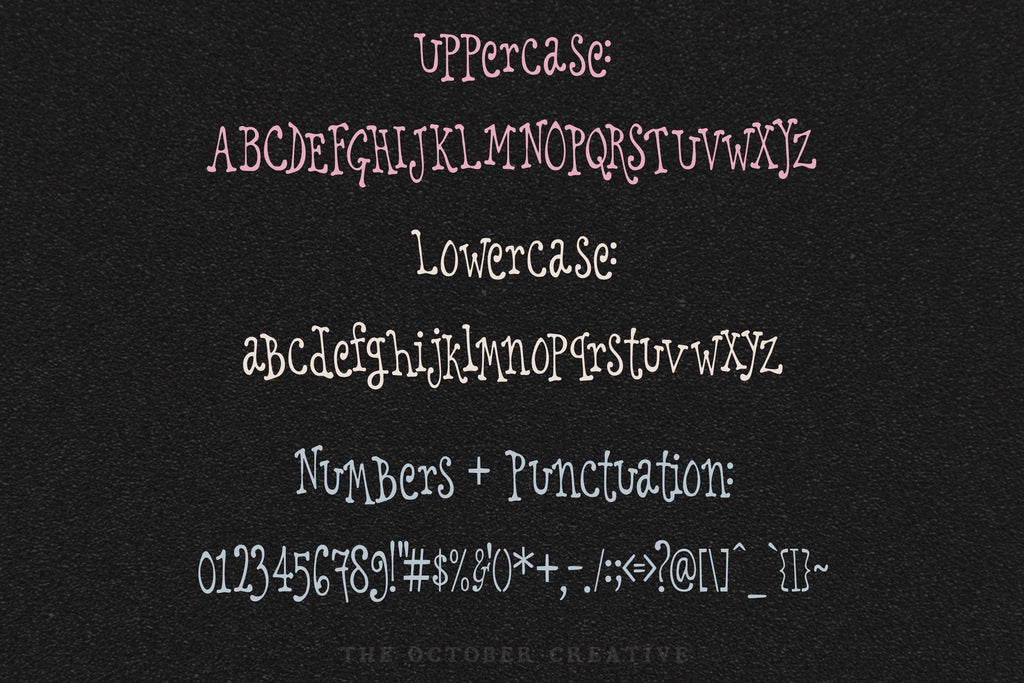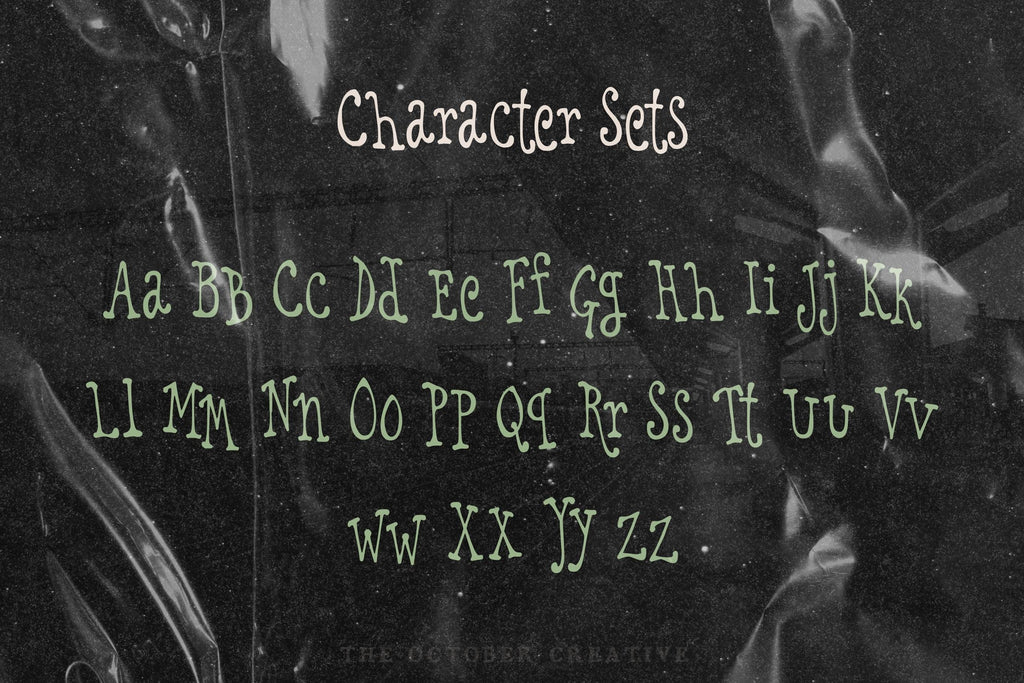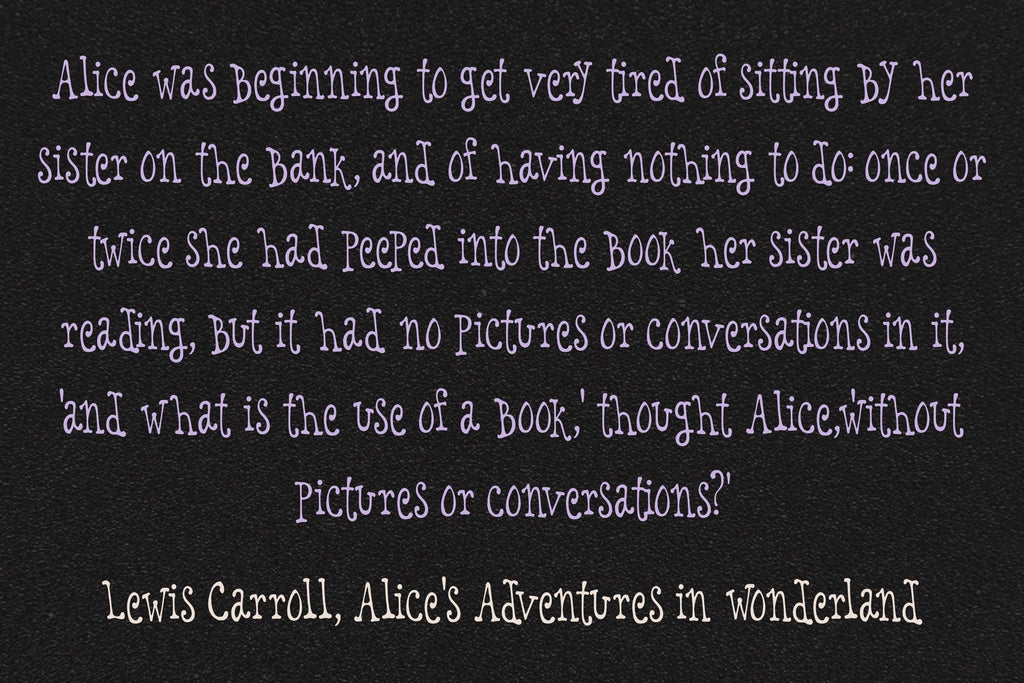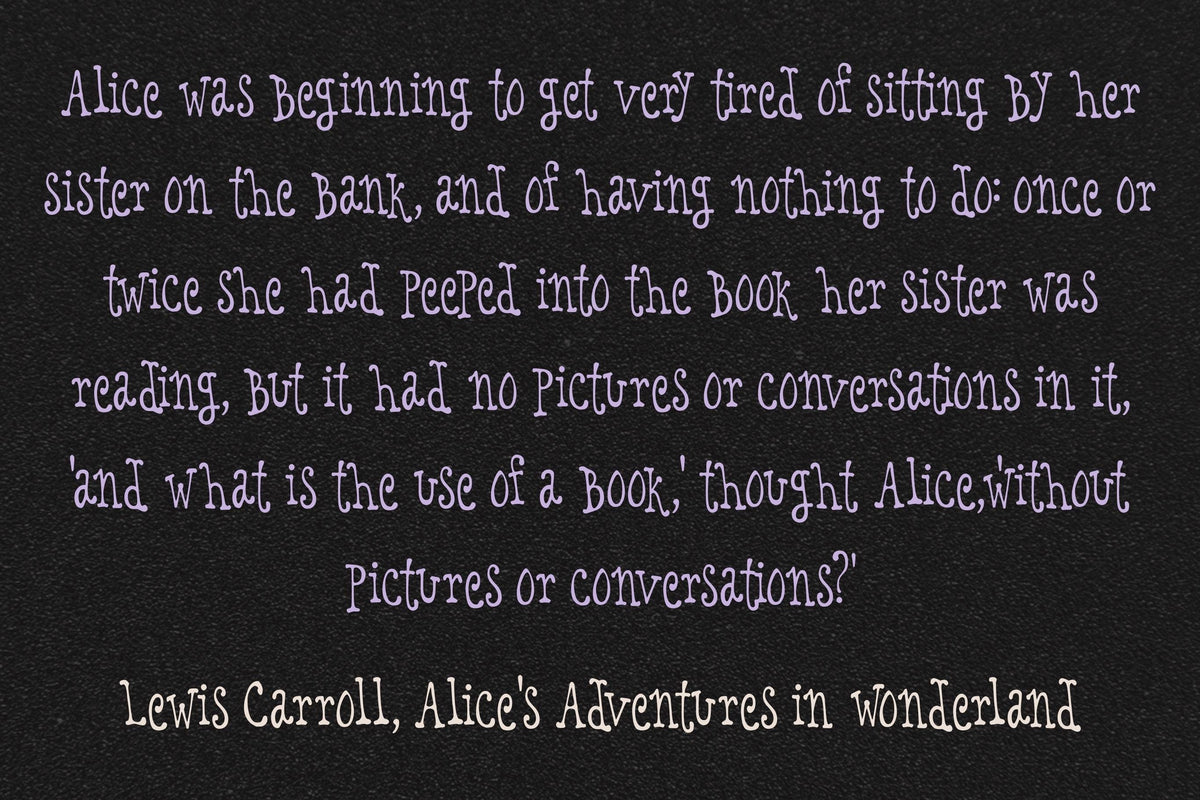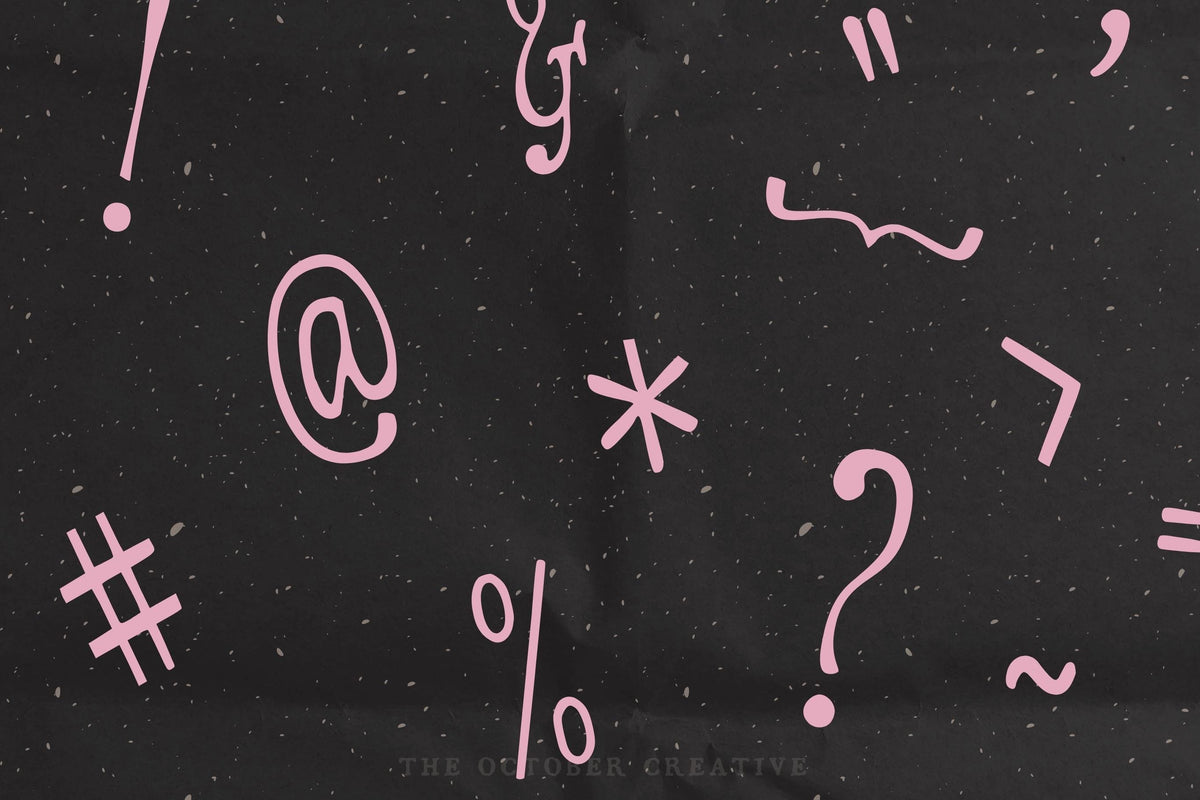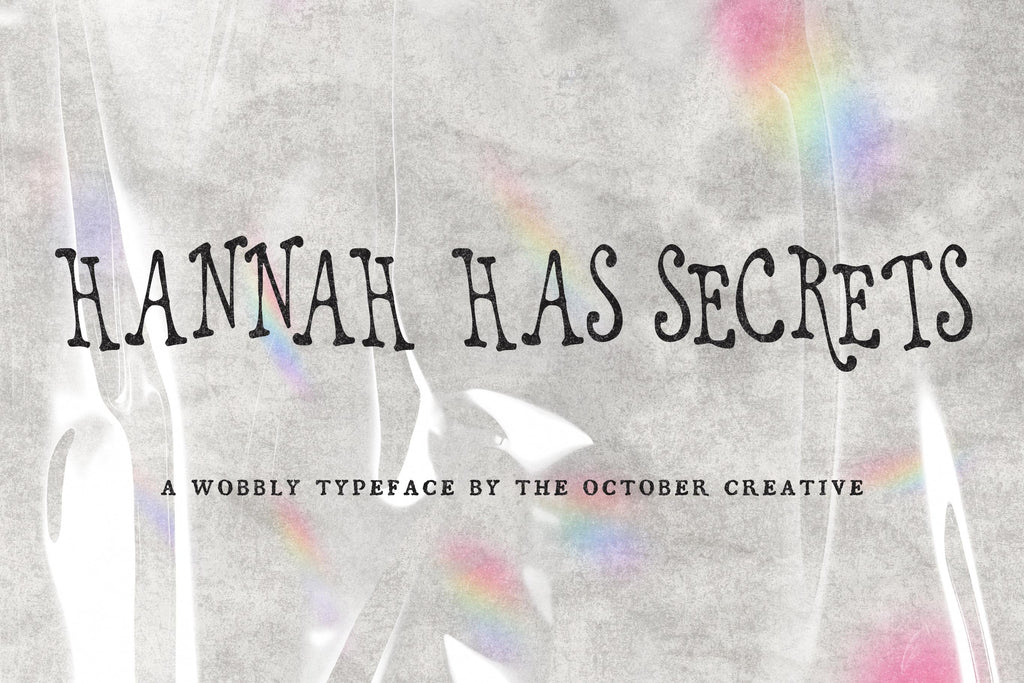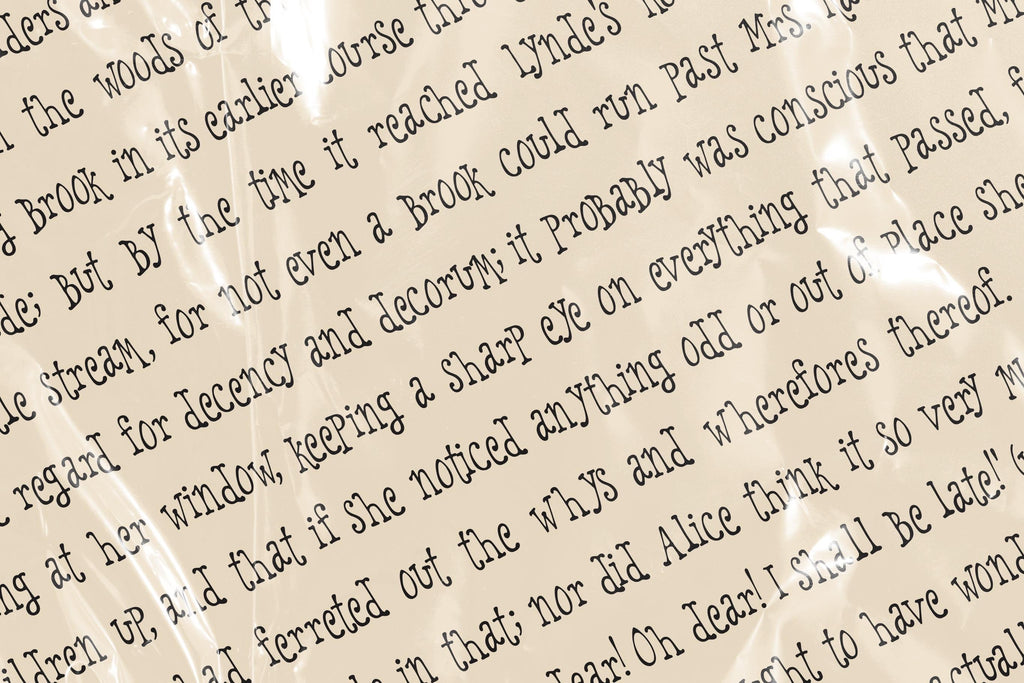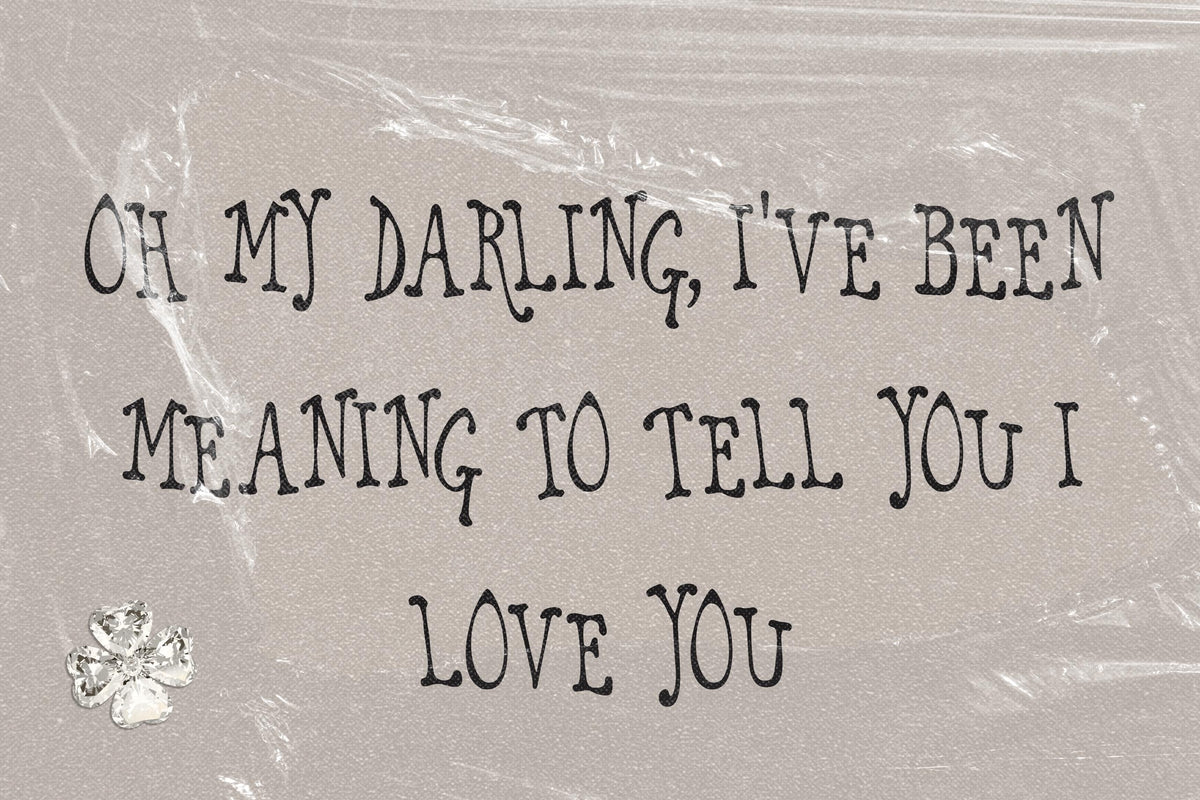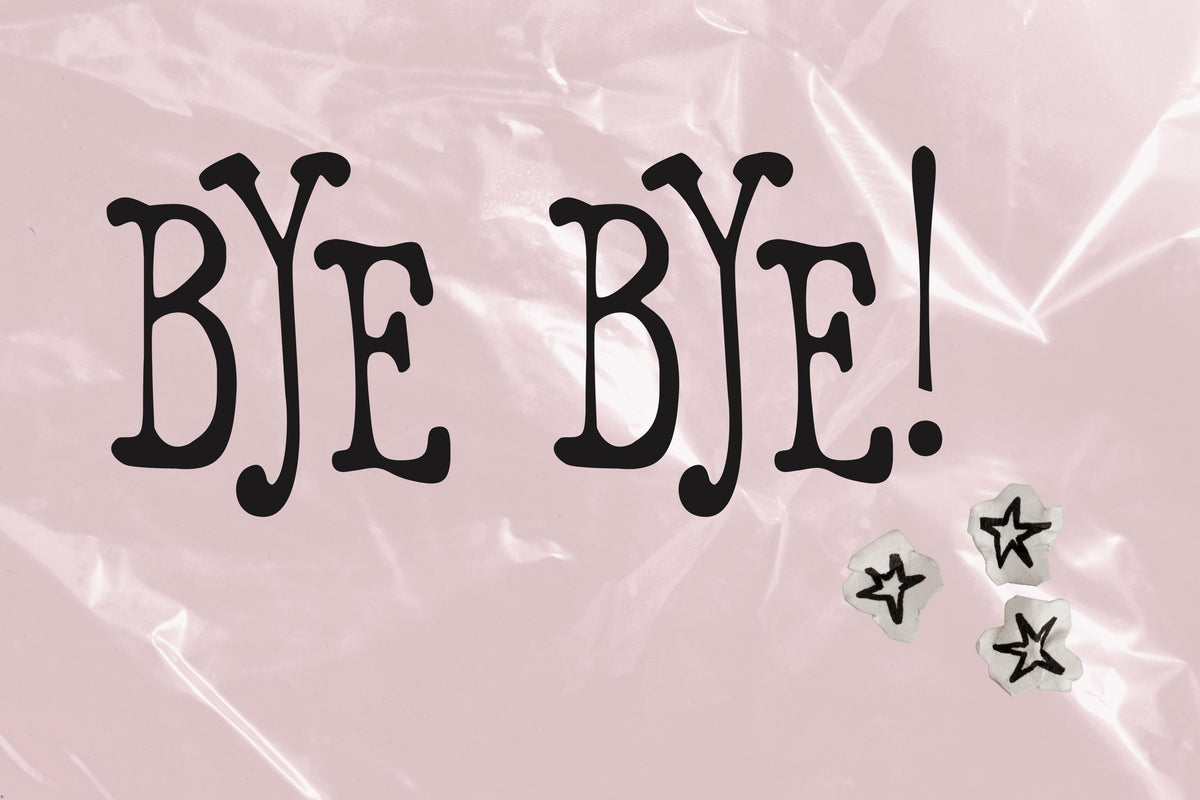
Hannah Has Secrets Font
Hannah Has Secrets is a wobbly serif font with an uneven baseline and a lowercase that mixes in capital-style letters. It has a playful, slightly spooky look that suits mystery party invitations, book covers, game night printables, and Halloween signs.
- One style: Hannah Has Secrets Regular